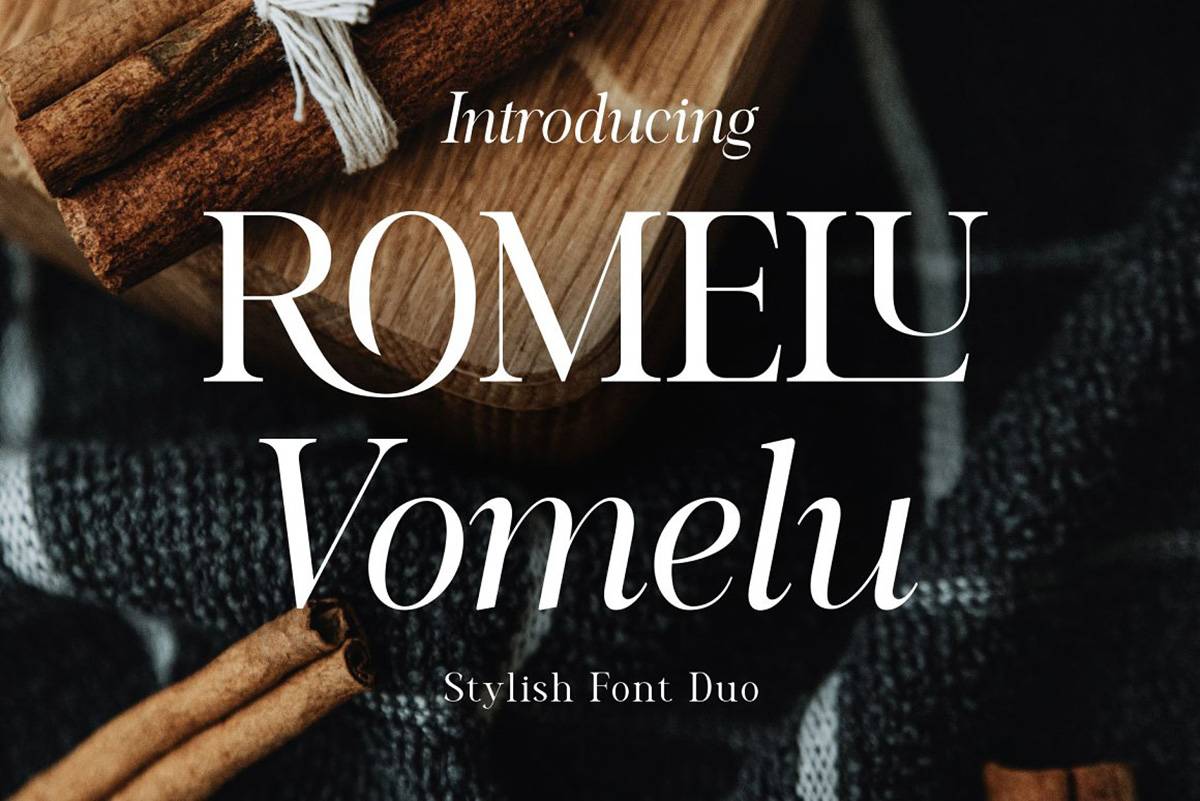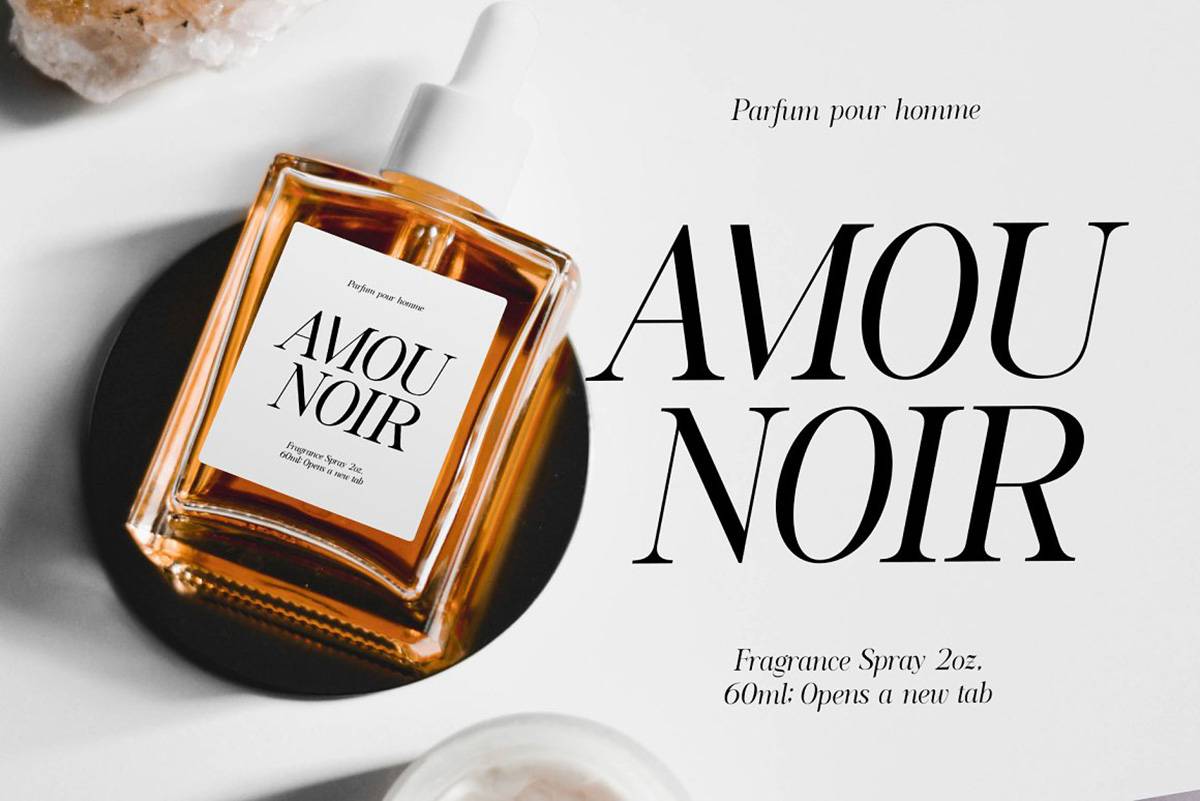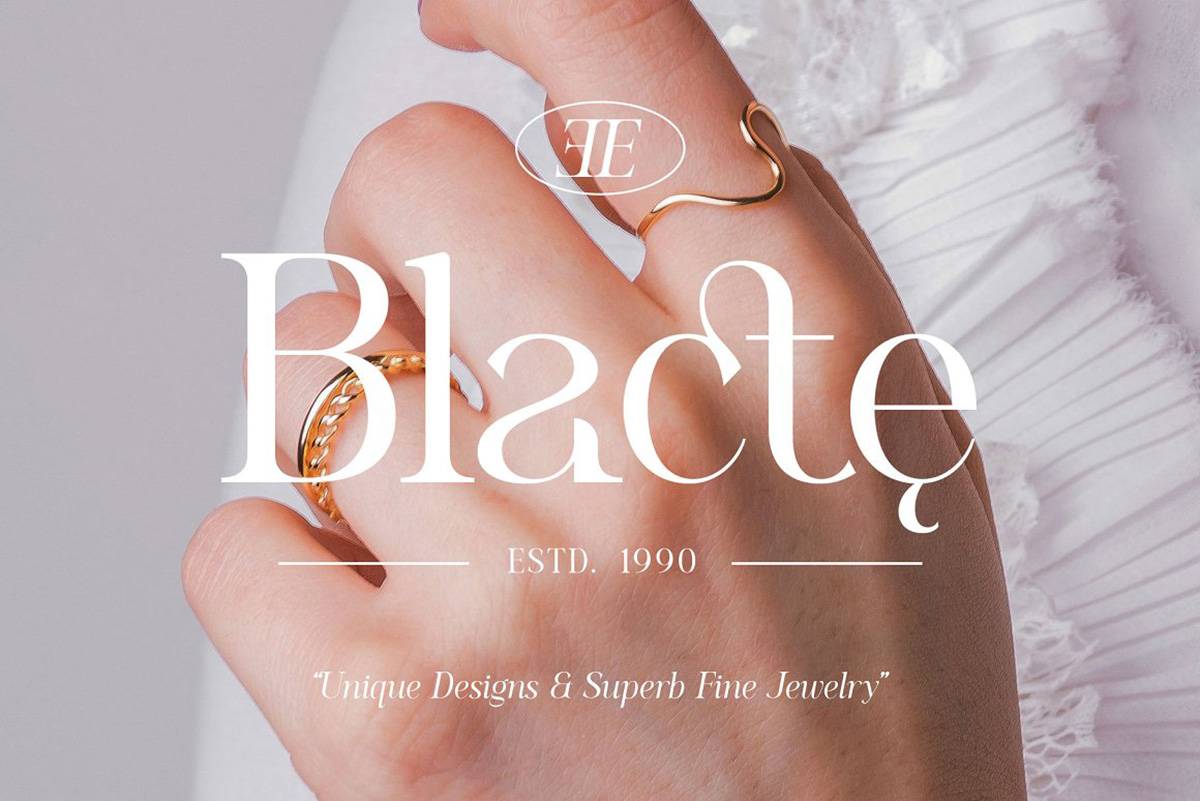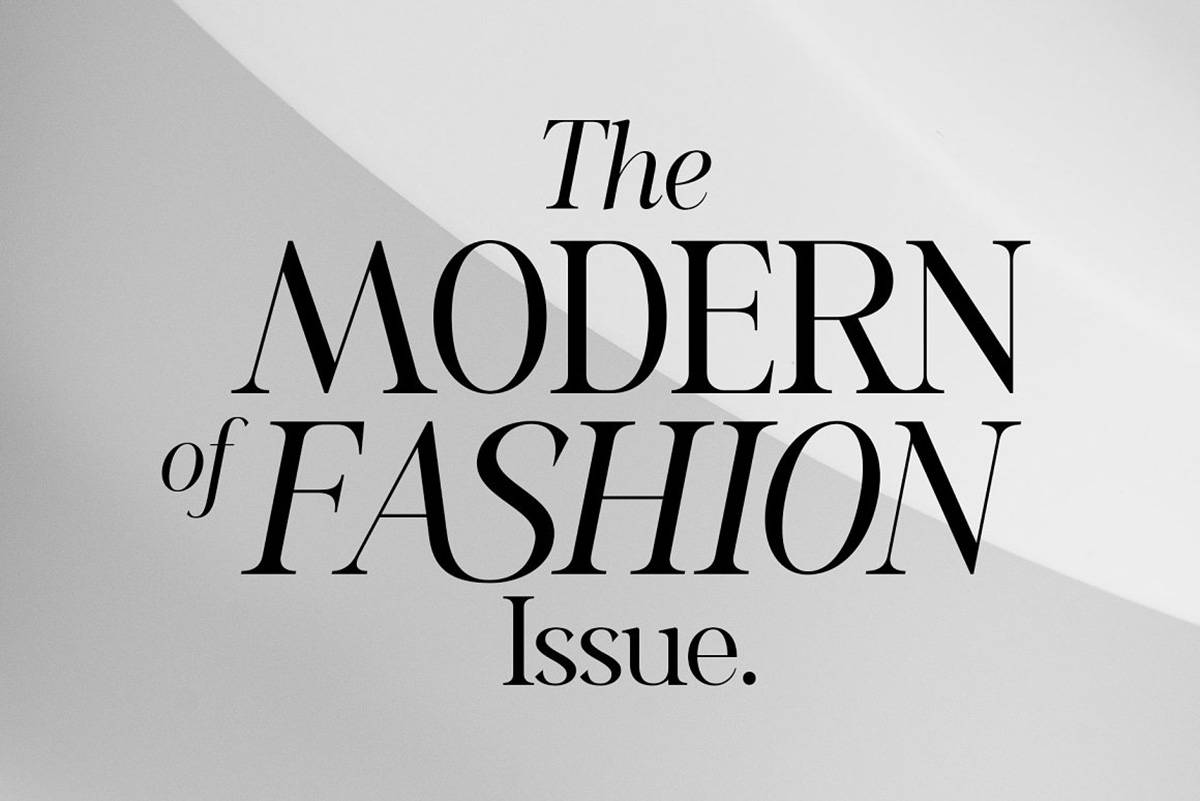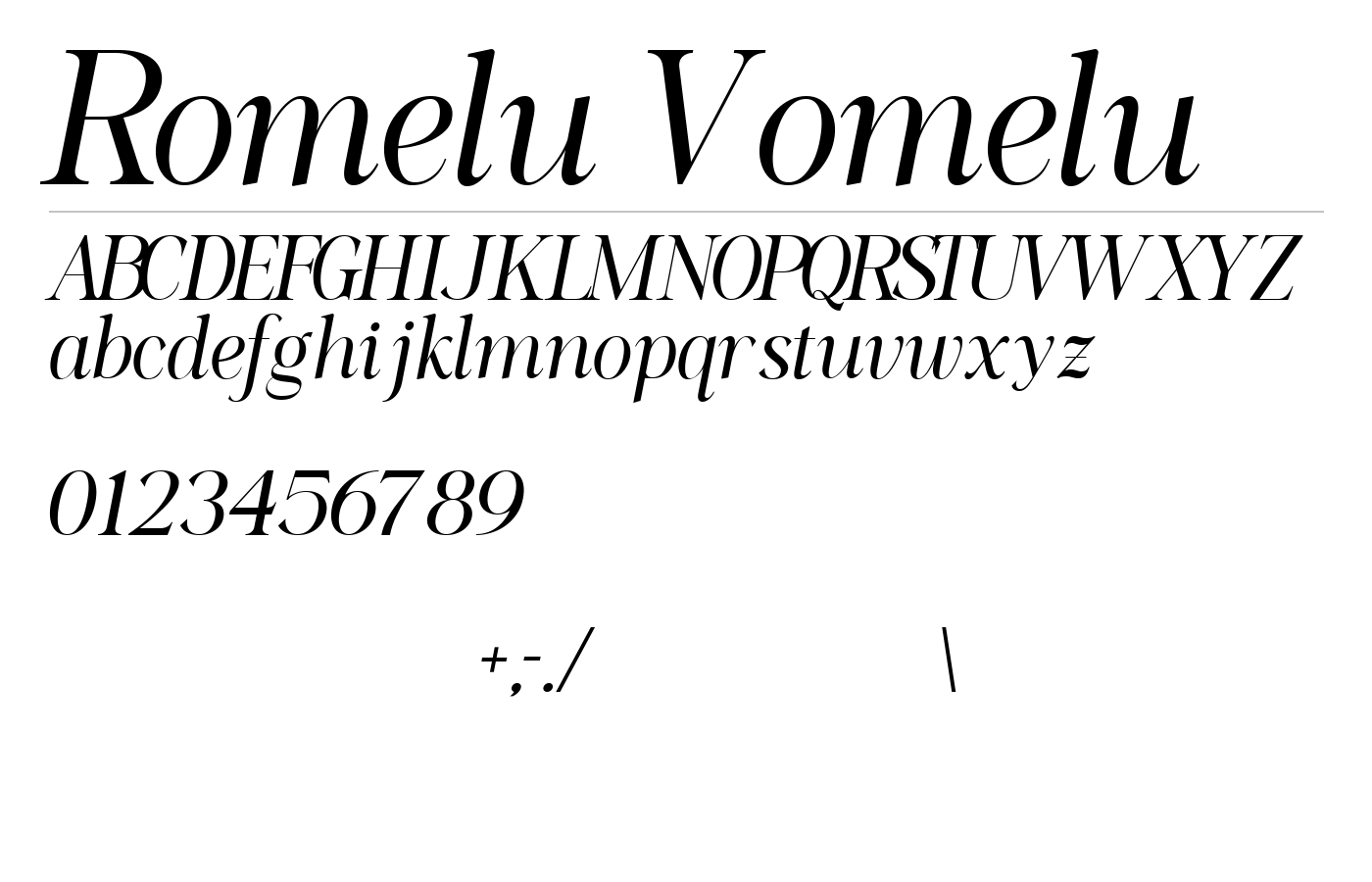
Romelu Vomelu is an elegant serif font with a refined Didone style, characterized by high contrast between thick and thin strokes and delicate, bracketed serifs. Its slender, slightly condensed letterforms and graceful italics make it perfect for sophisticated branding, editorial headlines, and luxury packaging. This font conveys a timeless, classic charm well suited for fashion and high-end contexts where style and readability blend beautifully.
Romelu Vomelu Font
About Romelu Vomelu Font
| Font family | Romelu Vomelu Font |